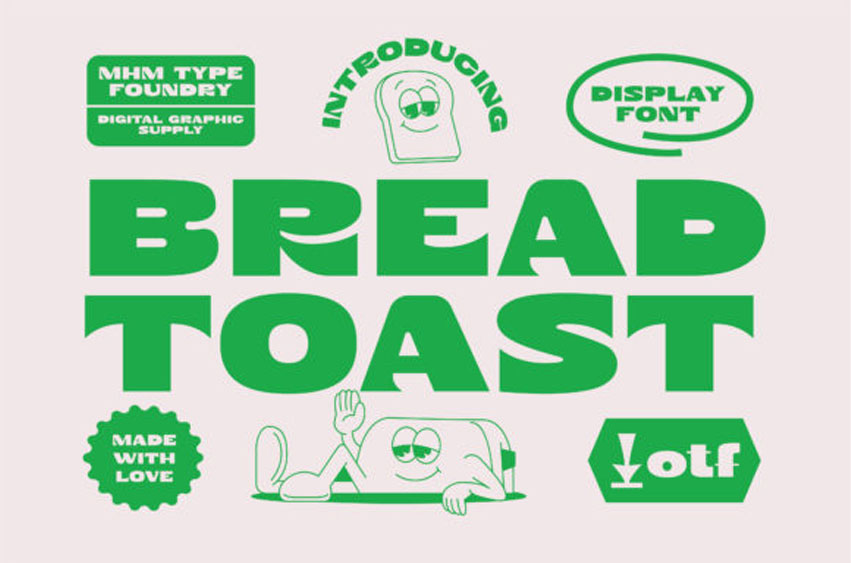
Bread Toast Font
Bread Toast Font is a bold and thick lettered display font.
Dynamic and trendy, this font will instantly make your creations stand out.